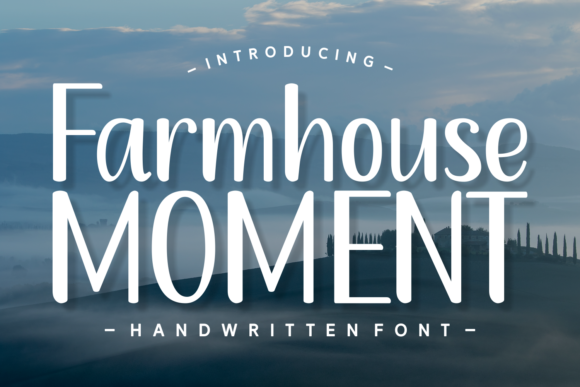
Get ready to dive into Farmhouse Moment, an exquisite script font that captures the essence of simplicity and timeless charm!
Farmhouse Moment is not just a font; it's an experience, a journey into the world of handwritten elegance. Each character dances onto your screen, creating an effortless flow that will elevate your projects to a whole new level.
This versatile font is a perfect match for Cricut and Silhouette cutting machines, making it a dream come true for crafters and designers alike. Unleash your creativity and bring your handwritten dreams to life with Farmhouse Moment.
But Farmhouse Moment is more than just a tool; it's a window into nostalgia, a reminder of cozy farmhouses and countryside living. Imagine the warmth of a crackling fire, the aroma of freshly baked bread, and the comfort of a loved one's embrace. Farmhouse Moment encapsulates all of these emotions and more, bringing a touch of pure bliss to your creative endeavors.
Embrace the Schönheit of Farmhouse Moment and watch as your projects blossom into masterpieces. Its timeless elegance will leave a lasting impression on your audience, evoking a sense of nostalgia and charm.
With Farmhouse Moment, you're not just downloading a font; you're embracing a lifestyle. A lifestyle of creativity, passion, and unwavering dedication to the art of handwritten beauty.
Join the growing community of creatives who have fallen in love with Farmhouse Moment. Let your imagination soar and transform your projects into works of art.